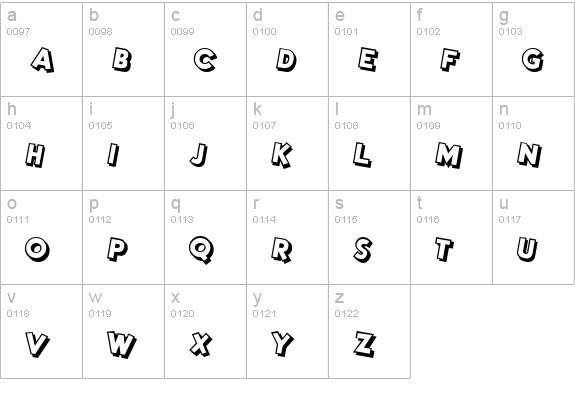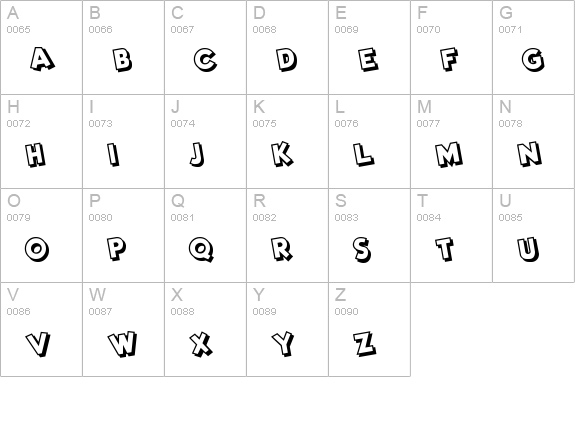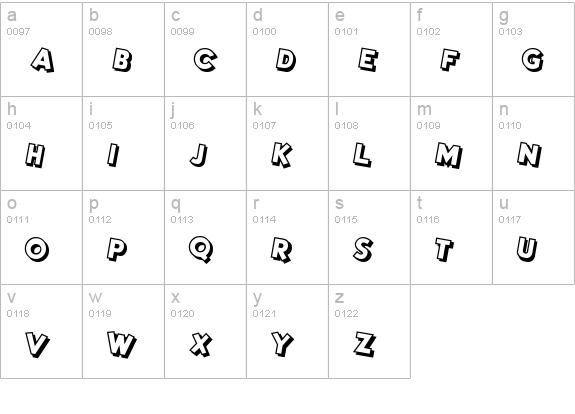
DimWitRight Font Details
Introducing DimWitRight font, a captivating typeface that effortlessly merges simplicity with sophistication. Designed to enhance the visual appeal of any project, this font exudes an air of modernity and versatility. Its clean lines and balanced proportions make it perfect for a variety of design purposes, ranging from logos and branding to headlines and body text. What sets DimWitRight font apart is not just its aesthetic appeal but also its accessibility. As a free font, it offers a unique opportunity for designers, students, and enthusiasts alike to experiment with its distinct style without any financial constraints. This font is freely available to download at FontsMarket.com, a trusted platform that caters to the creative needs of individuals from all walks of life. With DimWitRight font, you can effortlessly create eye-catching designs that leave a lasting impression. Its well-crafted letterforms ensure legibility and readability, even at smaller sizes, making it an ideal choice for both print and digital projects. Whether you're working on a sleek corporate brochure, a trendy fashion magazine, or a captivating website, DimWitRight font will add a touch of elegance and professionalism to your creations. The versatility of DimWitRight font allows it to adapt to various design styles and contexts. Its timeless appeal transcends trends, making it a reliable choice for projects that require a classic yet contemporary aesthetic. From minimalist layouts to bold and expressive compositions, this font effortlessly adapts to your creative vision, breathing life into your designs with its distinctive personality. So why wait? Embrace the freedom to create with DimWitRight font, now available for free download at FontsMarket.com. Unlock the potential of your designs and elevate them to new heights with this exceptional typeface. Let DimWitRight font be your creative partner, empowering you to bring your ideas to life with style and finesse.